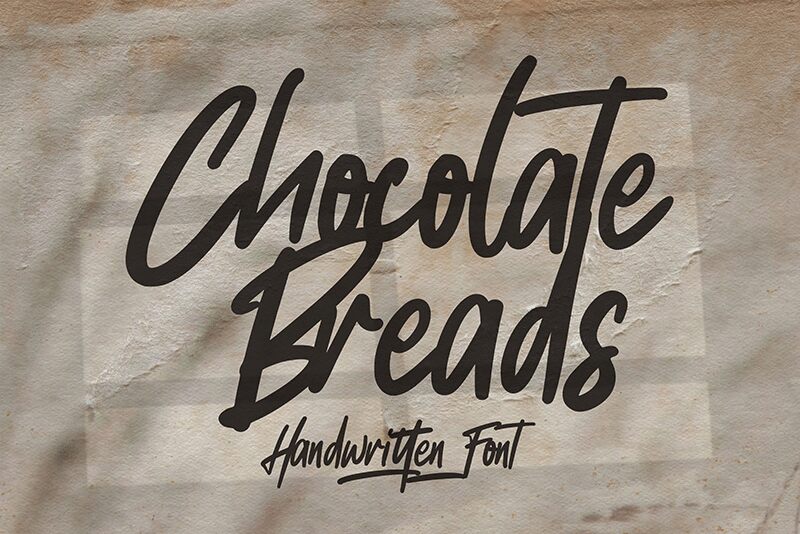
Chocolate Breads is a light, signature handwritten font created by Anang Fibriyanto at Cornertype Studio Indonesia. This beautiful font is perfect for adding an elegant, personalized touch to projects such as wedding invitations, logos, branding materials and much more.